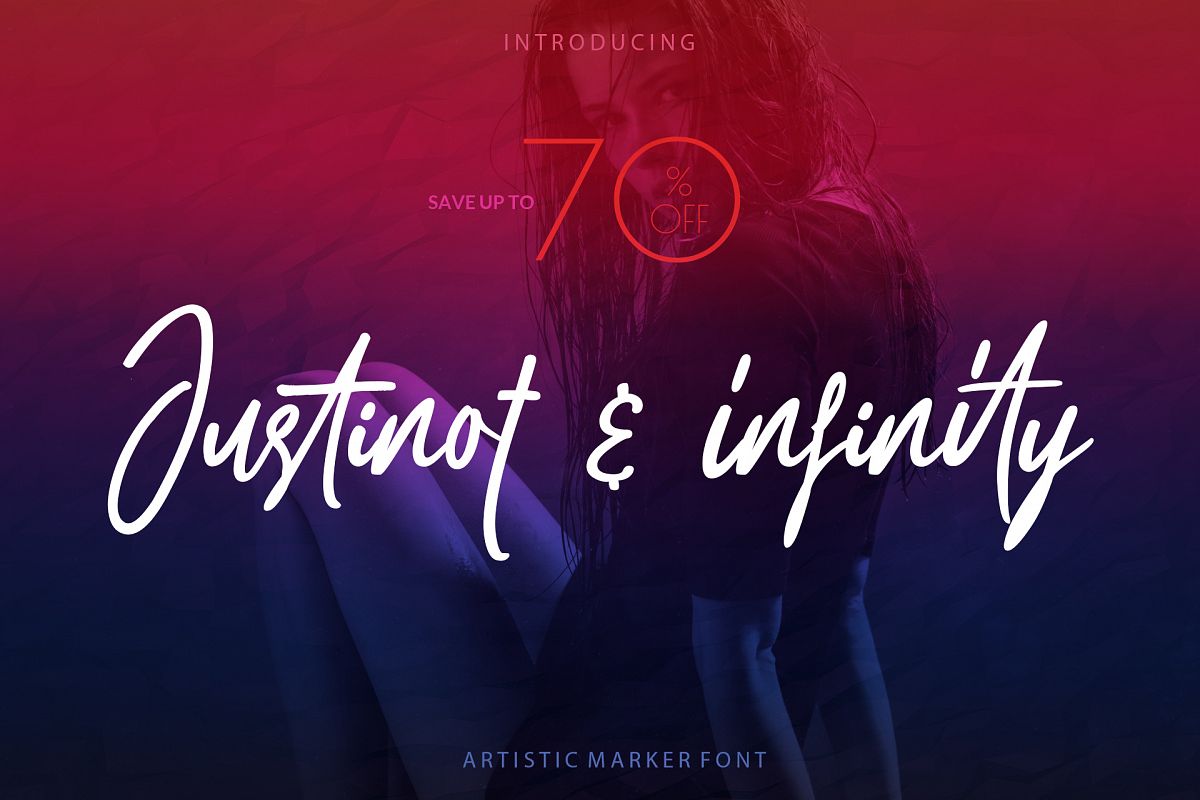
Justinot Infinity Marker Font
Thank you for looking :)Let me introduce you the font Justinot Infinity. It flows like a signature while you type it. It really shows the art of hand-work. It is very legible even though its nature looks like it has extreme lines. It is really unique in this regard. Awesome! Isn't it? :)GREAT FOR
• Numbers and Symbols
• Alternate Characters